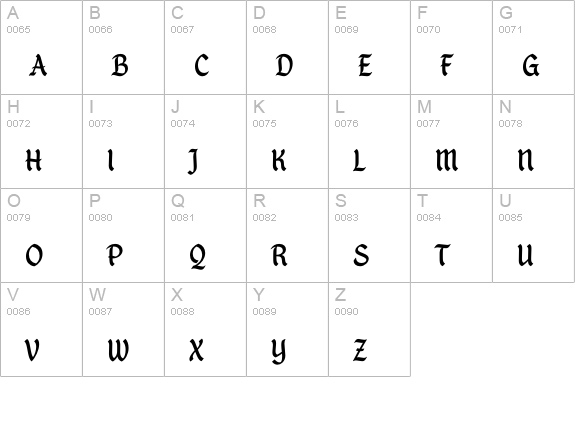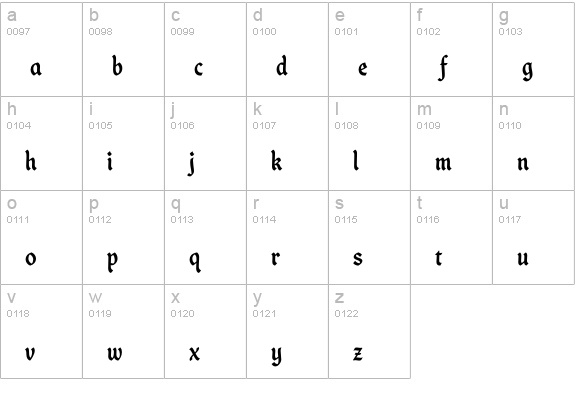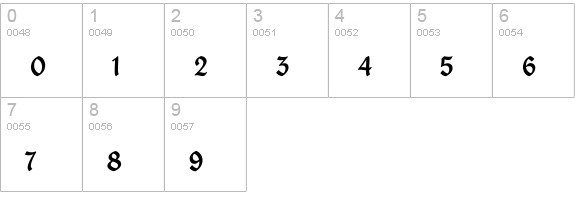
House Holiday Gothic Font Details
House Holiday Gothic font is a striking display typeface that exudes a sense of elegance and mystery. With its bold, Gothic-inspired letterforms and intricate details, this font is perfect for creating eye-catching designs that demand attention. Whether you're working on a poster, logo, or branding project, House Holiday Gothic will add a touch of sophistication to your work. The best part? House Holiday Gothic font is completely free to download at FontsMarket.com. So you can easily add this unique typeface to your font library without breaking the bank. Don't miss out on the opportunity to enhance your designs with the timeless appeal of House Holiday Gothic font. Download it today and unleash your creativity!